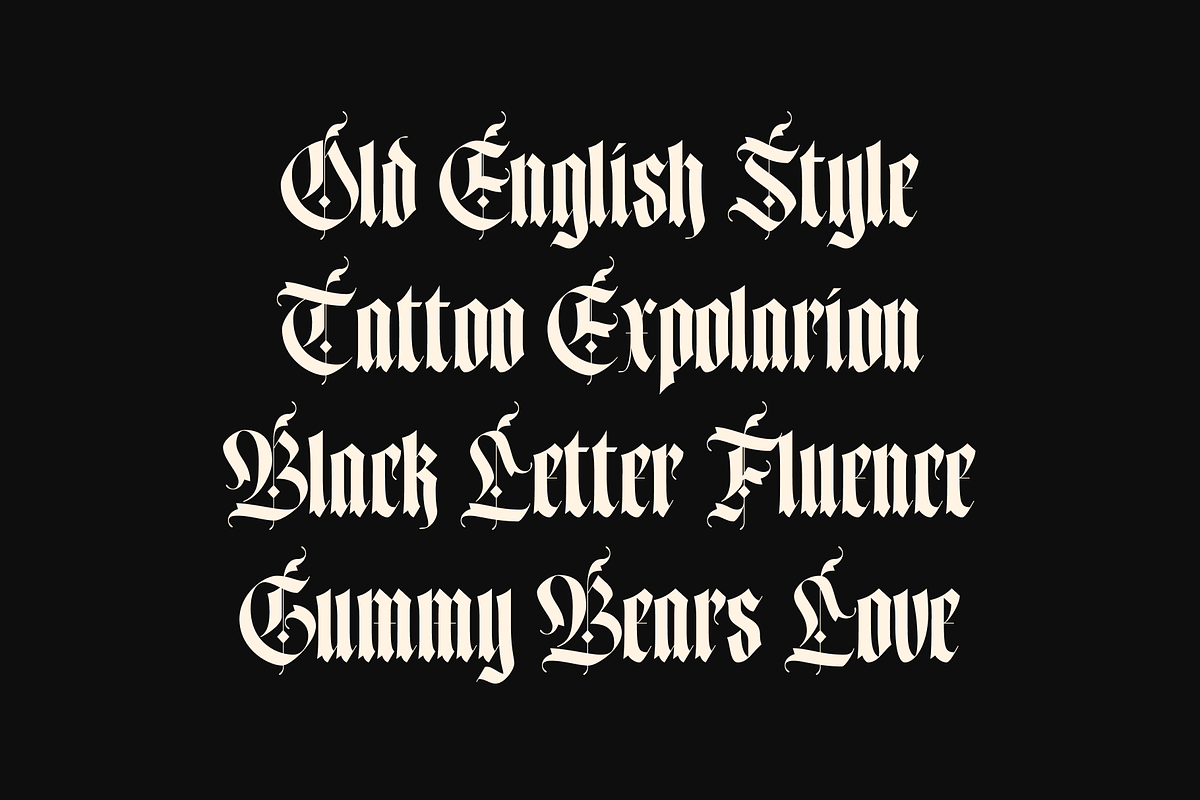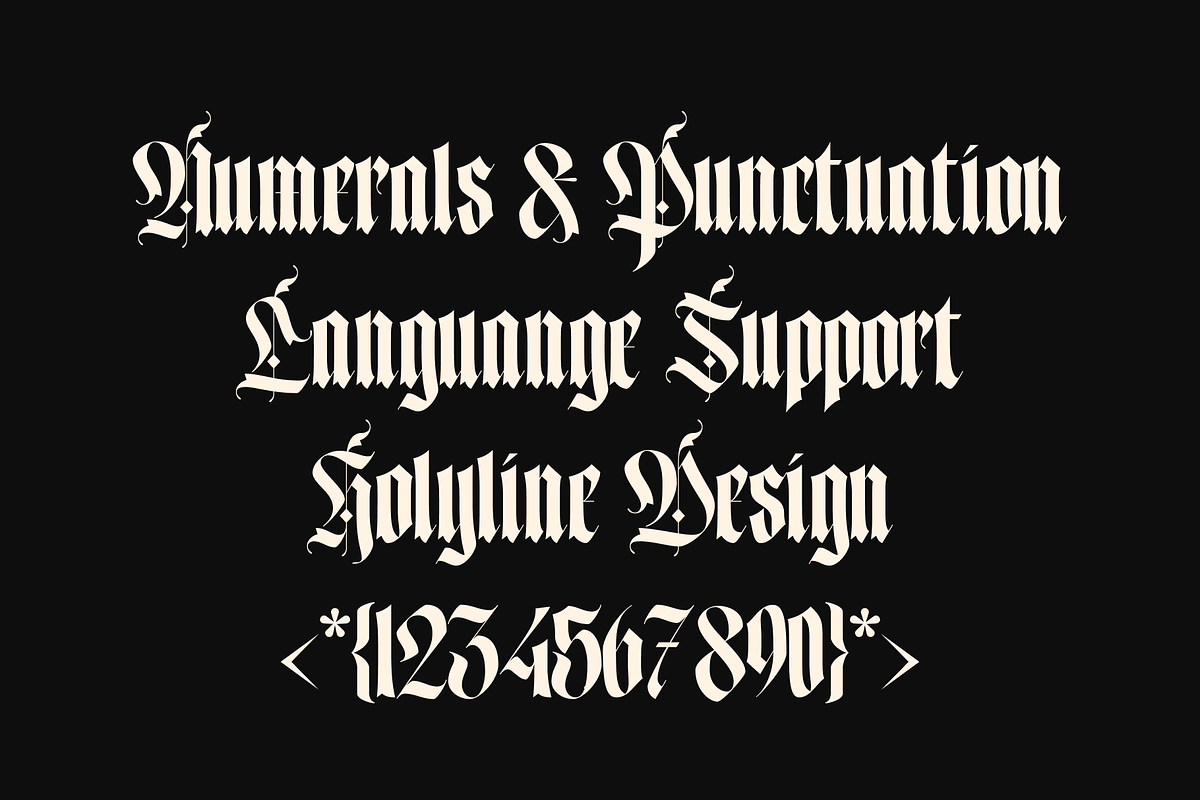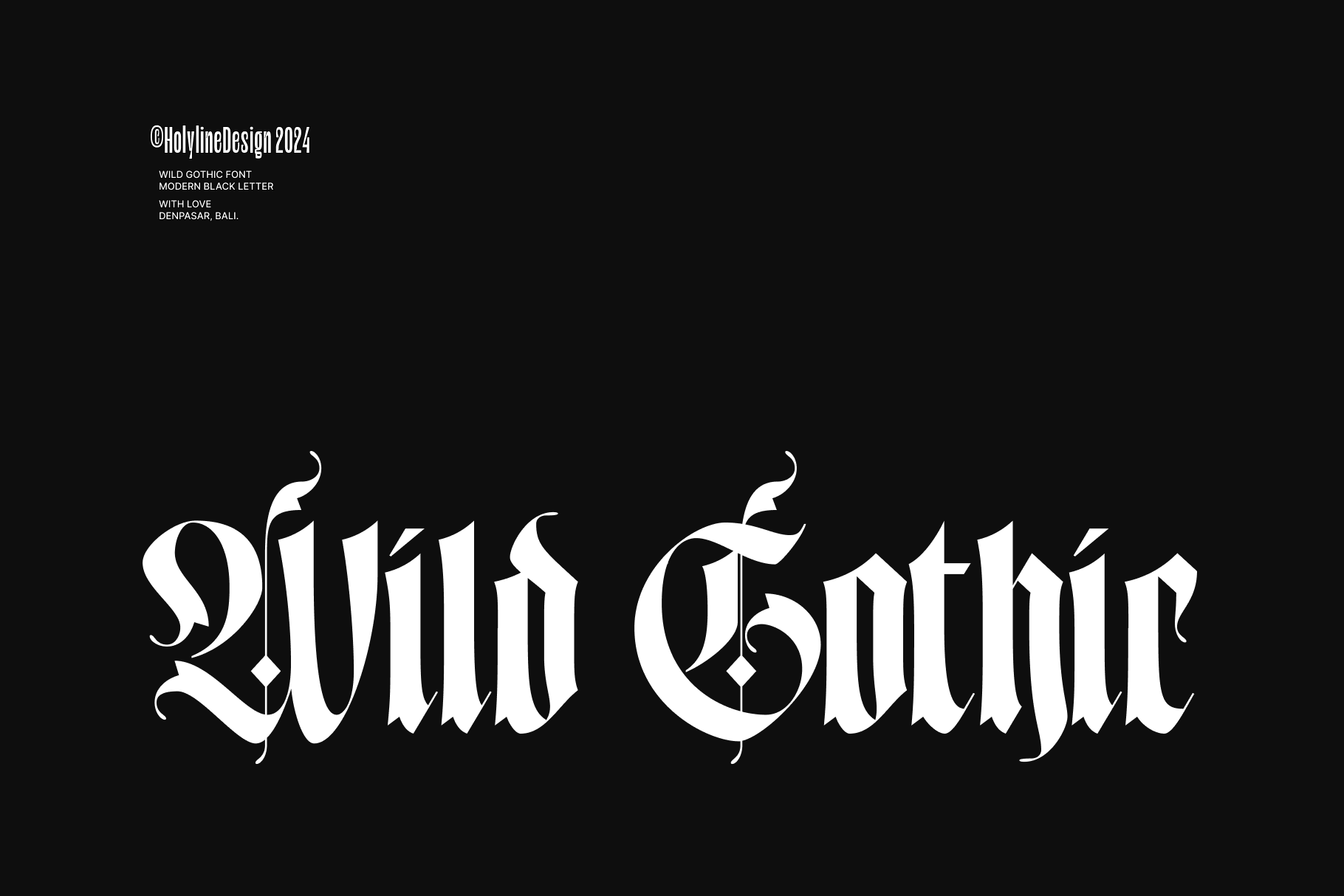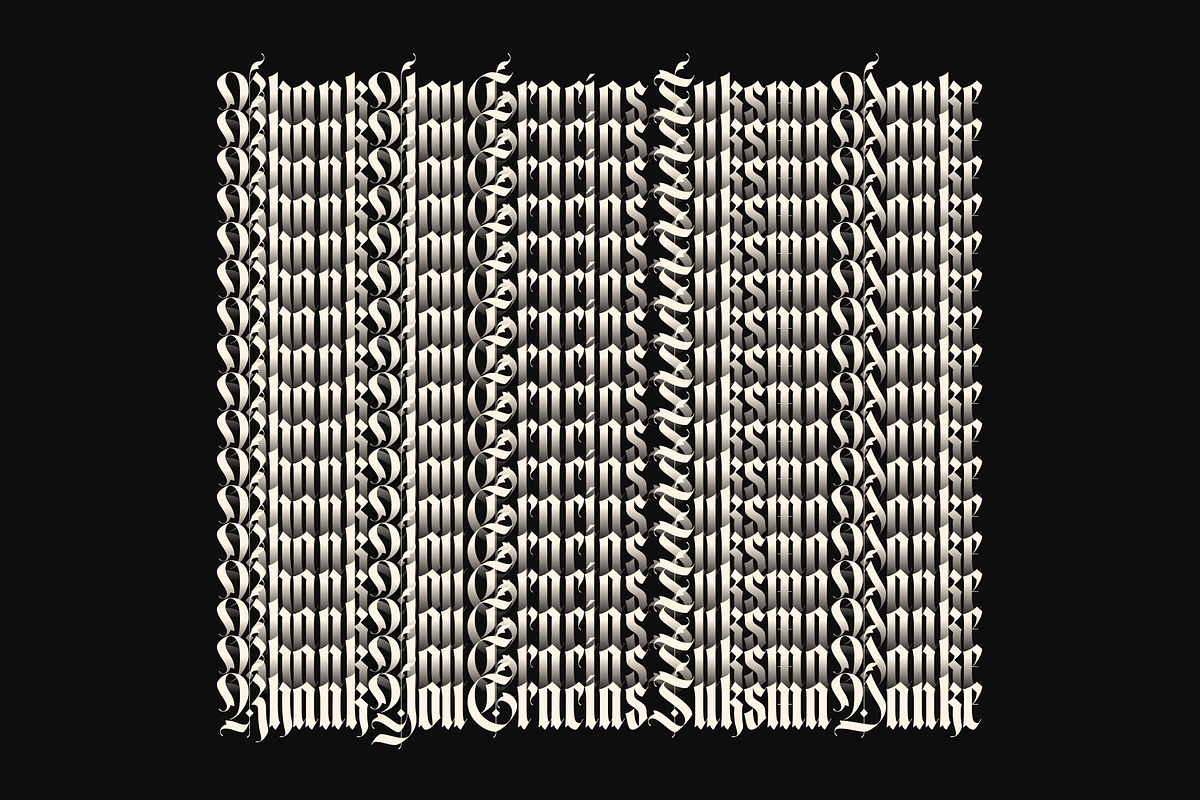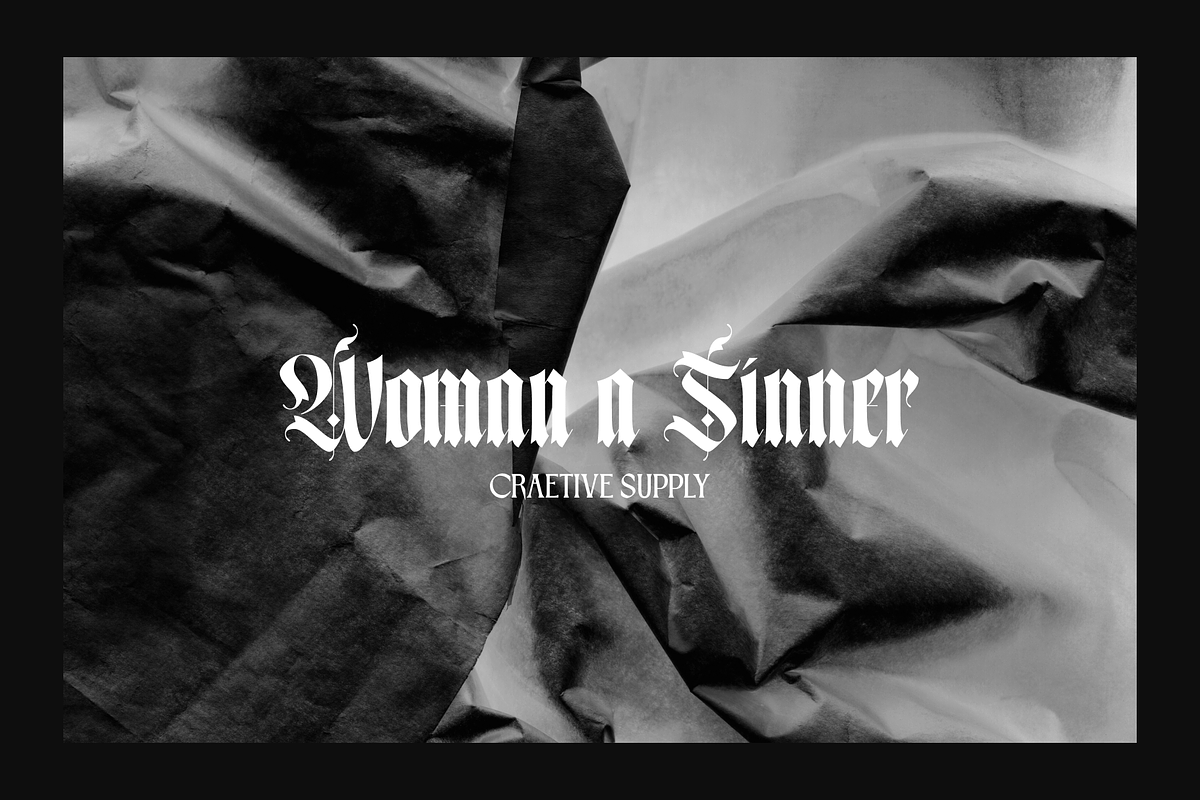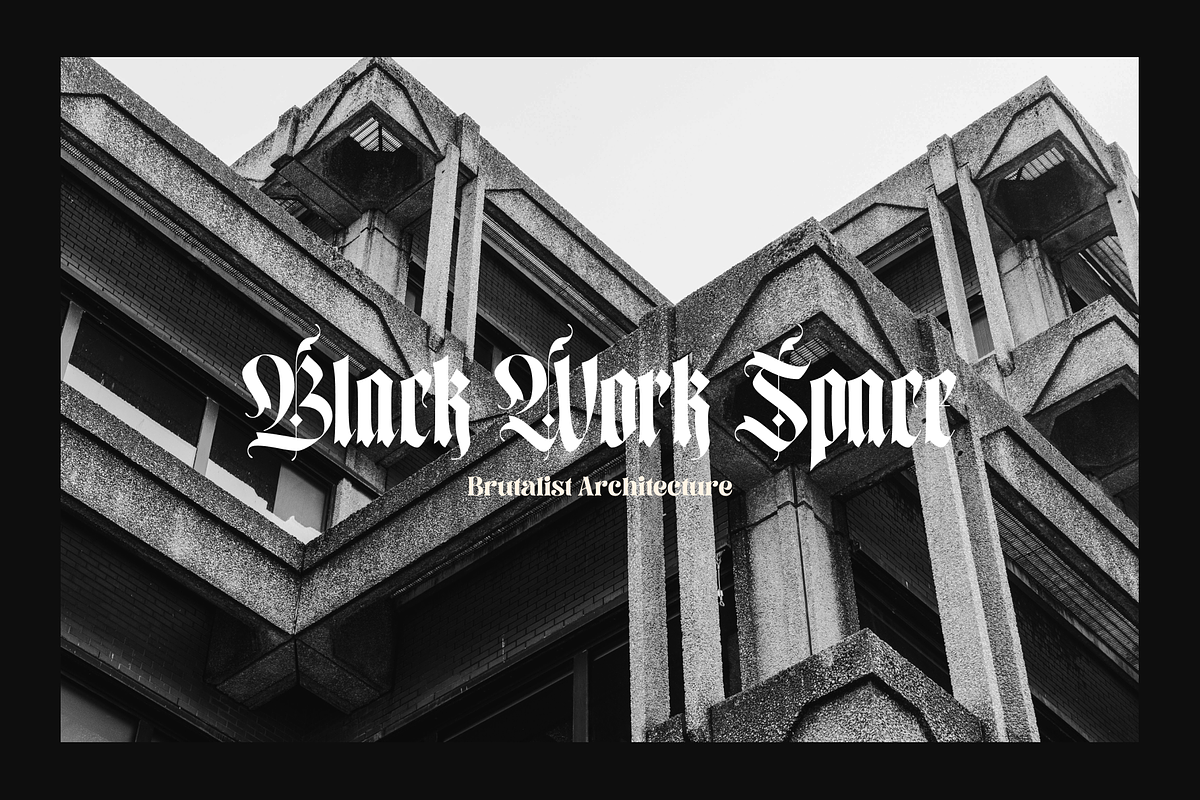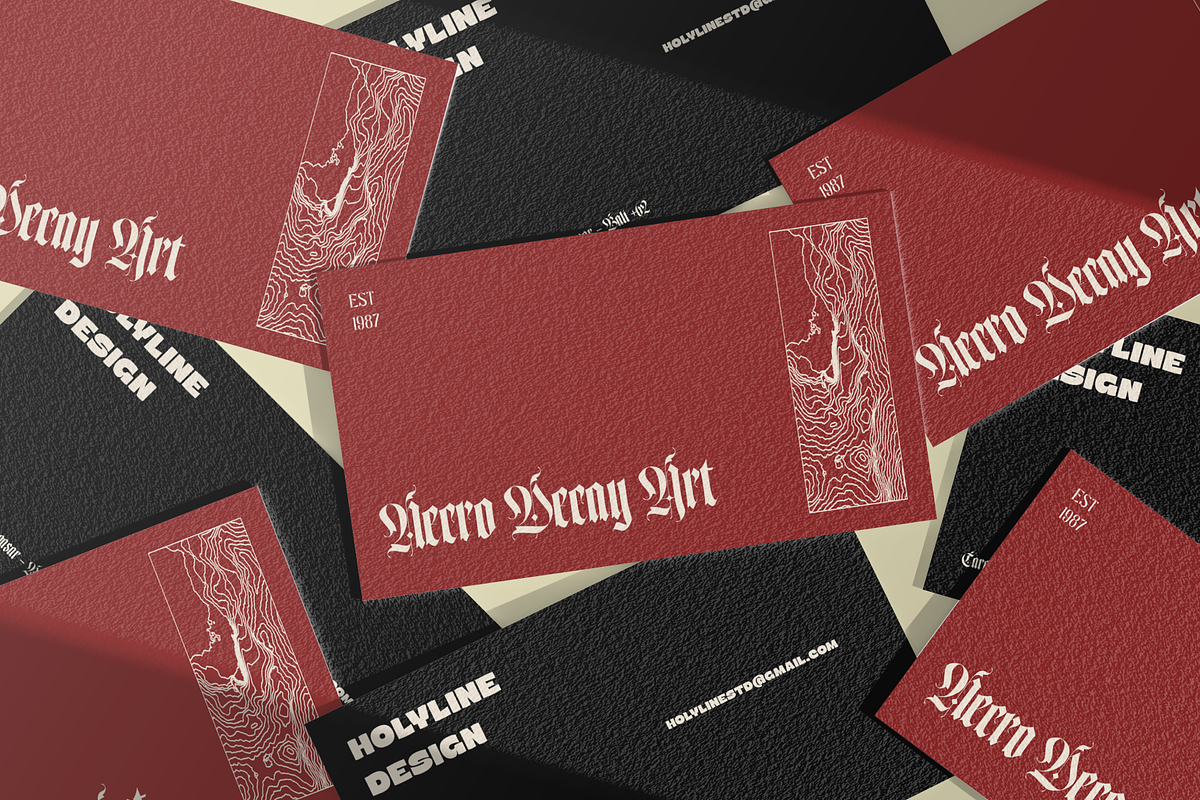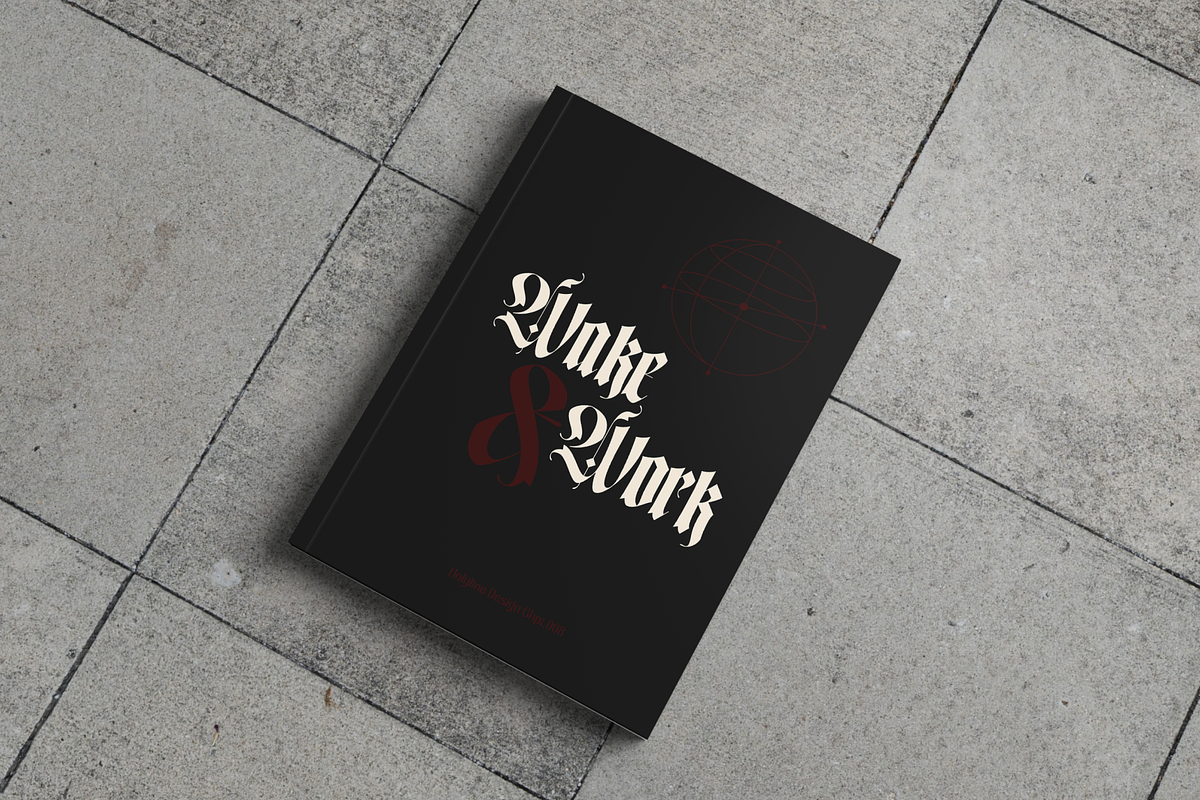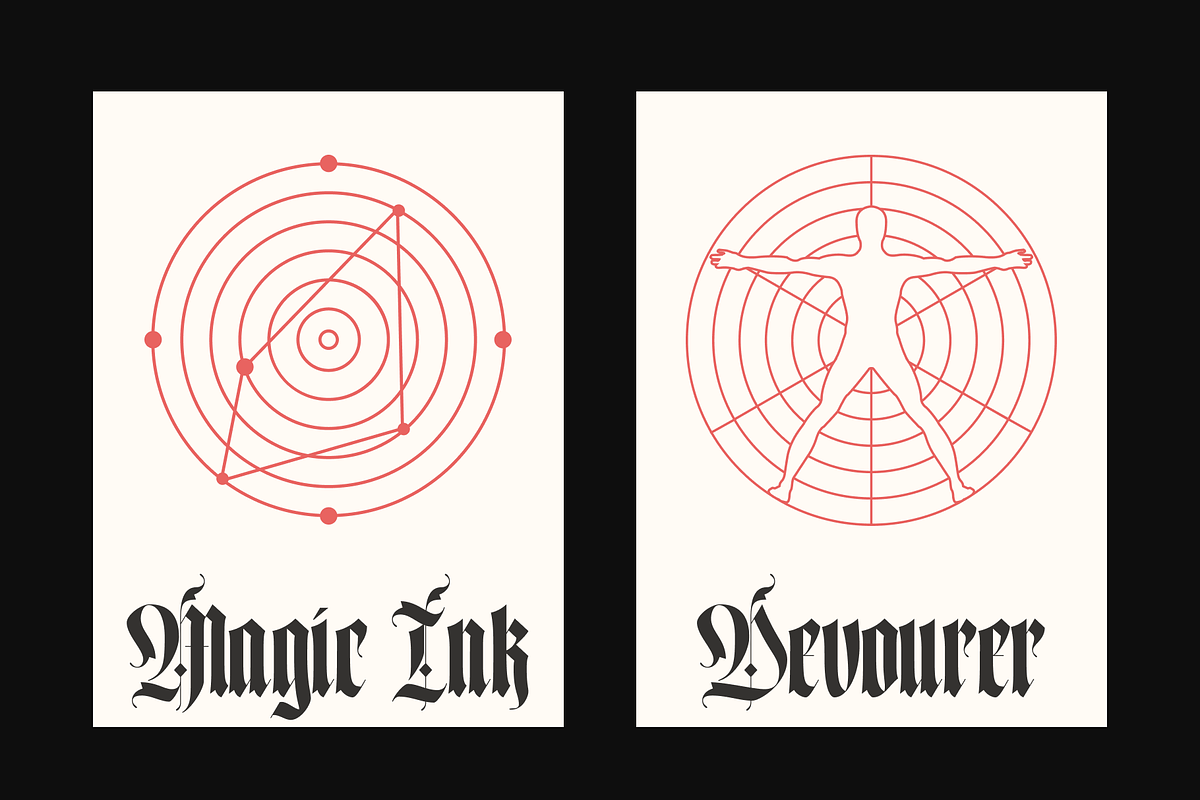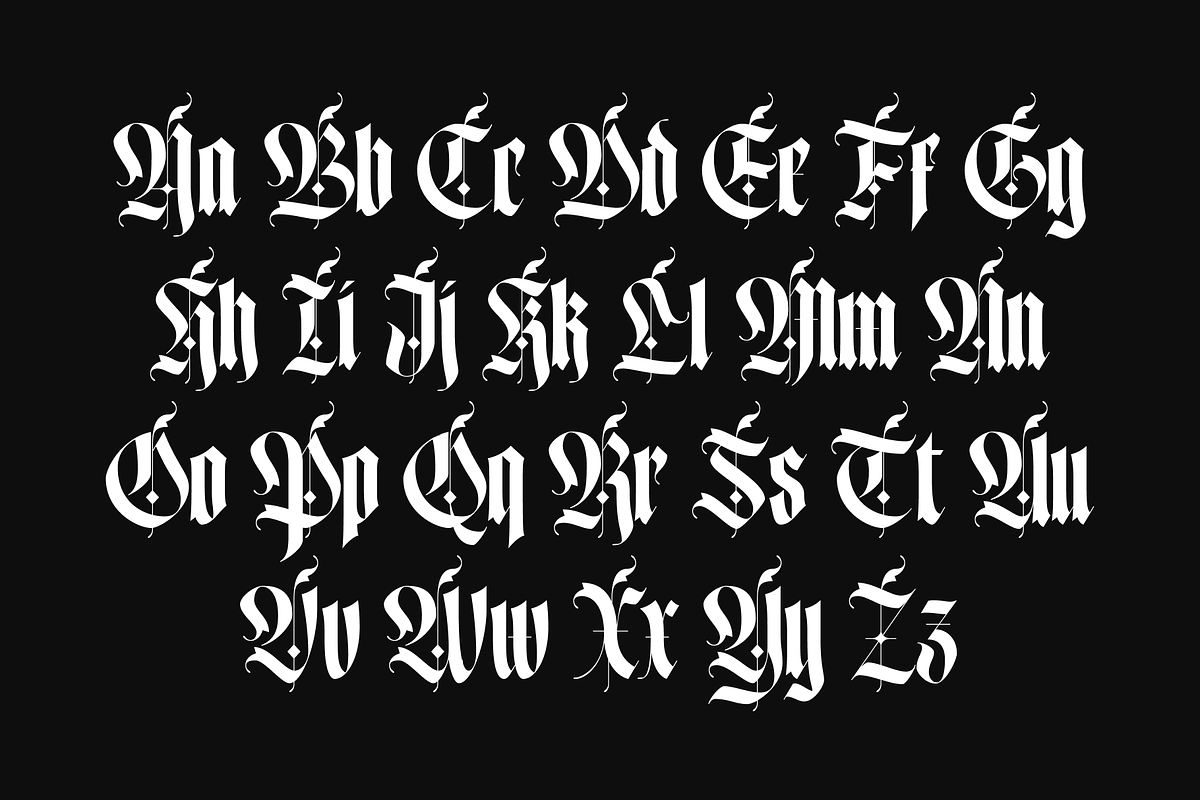
Wild Gothic - Blackletter Font
Wild Gothic is a bold Blackletter font with strong Old English roots, reimagined through the lens of brutalist design. Merging the traditional elegance of calligraphy with the stark, raw aesthetics of brutalism, this font brings a unique fusion of history and modernity.